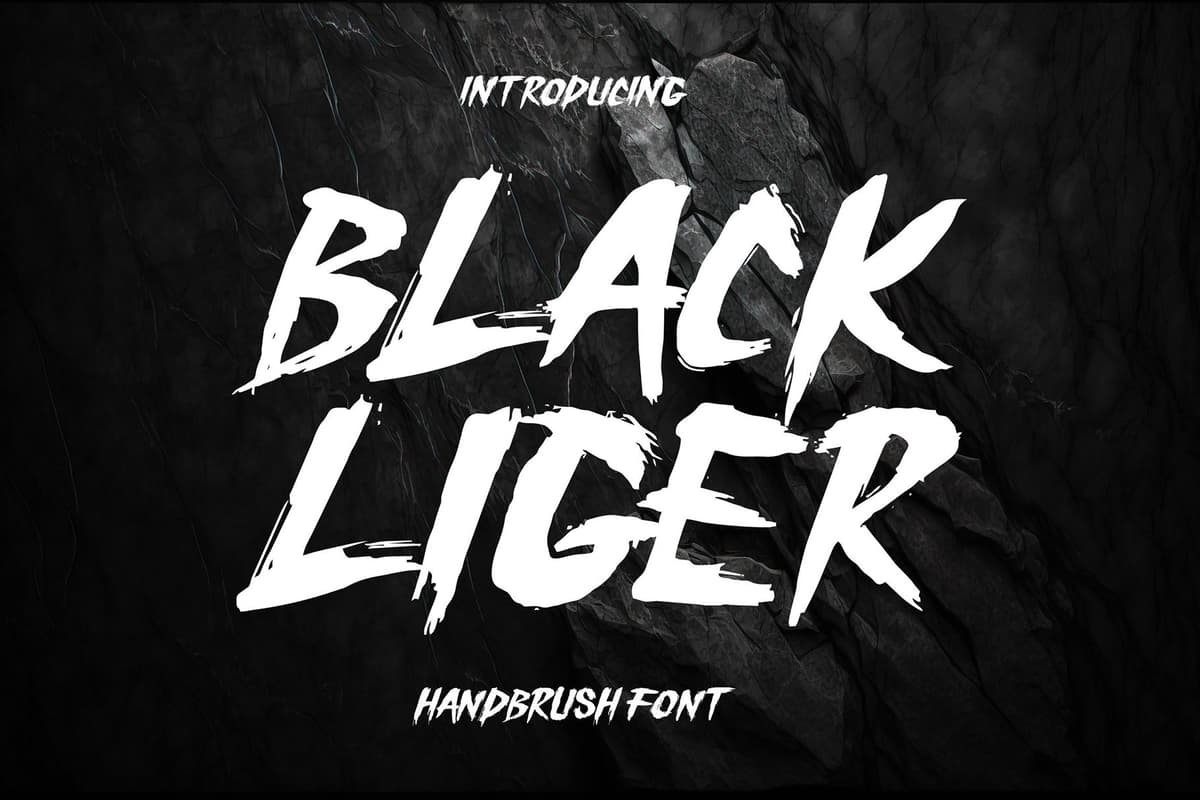
Black Liger
Introducing Black Liger – the ultimate Handbrush Font that roars with boldness and raw energy. Perfectly blending the wild intensity of a brushstroke with the elegance of hand-drawn design, Black Liger is crafted to bring a fierce and dynamic presence to your creative projects.